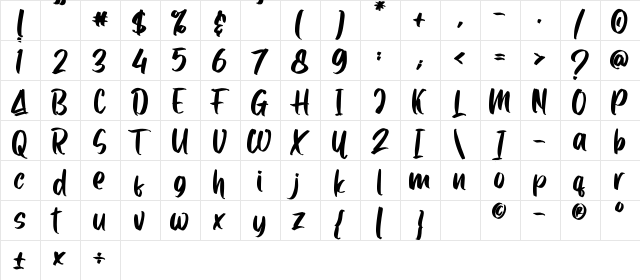
Samuell Solid_DEMO Regular
Design Context for Samuell Solid_DEMO Typeface
Samuell Solid_DEMO is a composed and adaptable typeface that performs quietly and consistently across a wide range of design contexts.